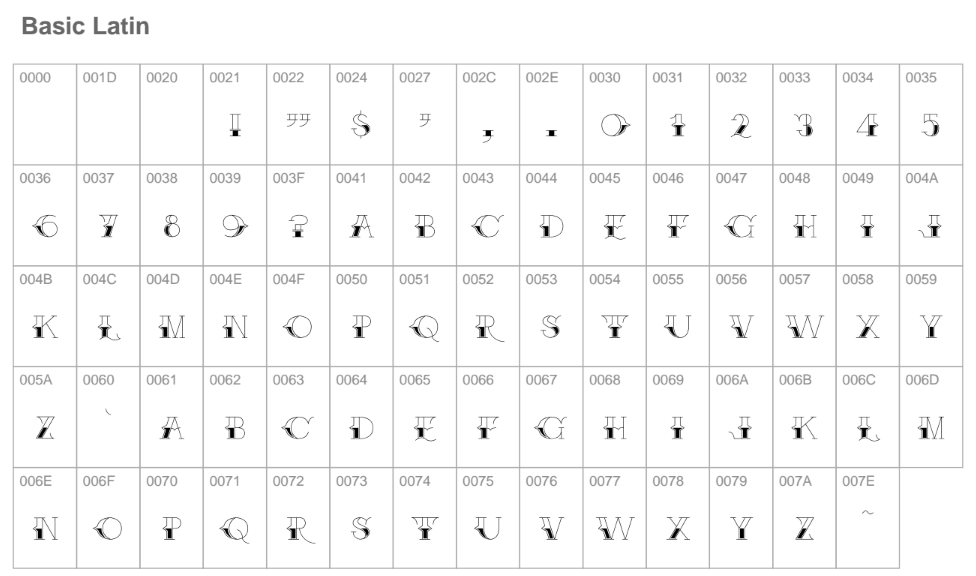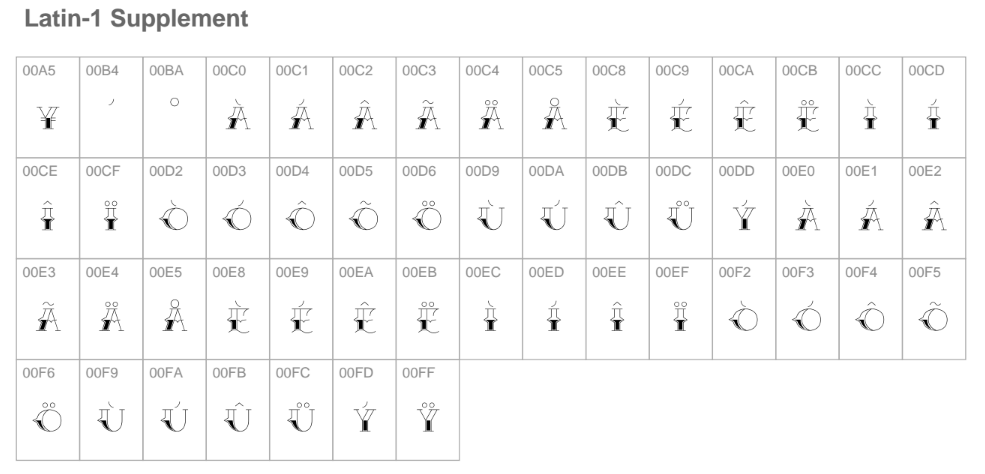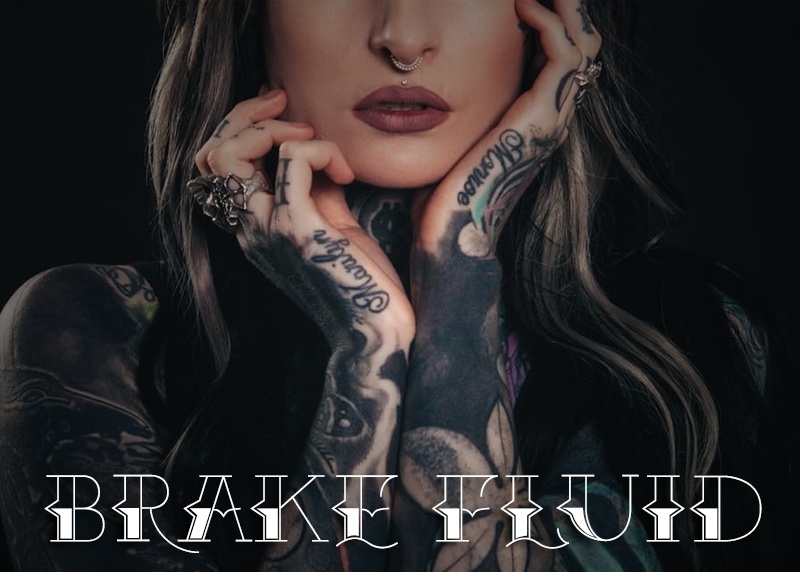
Brake Fluid is a tattoo themed font. It is free for personal use only. Any commercial or monetized use requires a font license which can be purchased from our font store.